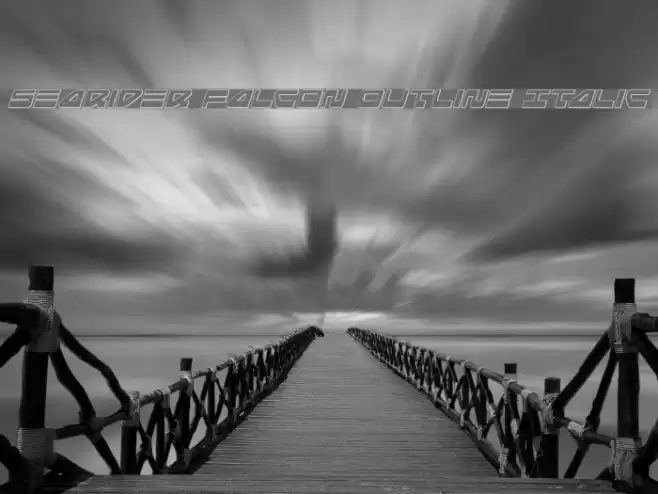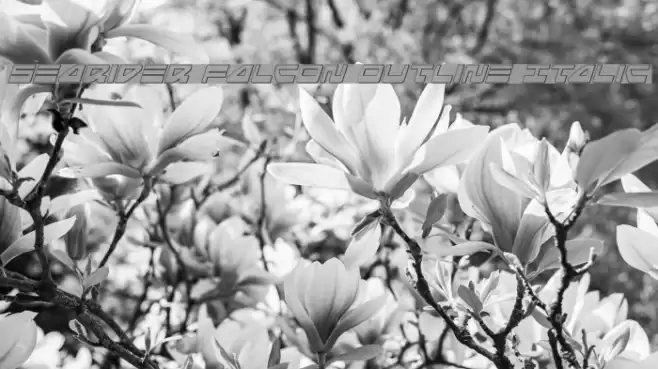
Searider Falcon Outline Italic Font
Searider Falcon Outline Italic Description
This font features a futuristic and dynamic design with an outline style that gives it a sleek and modern appearance. The characters are italicized, adding a sense of motion and energy. The geometric shapes and sharp angles create a bold and distinctive look, making it ideal for attention-grabbing designs. The uppercase and lowercase letters maintain a consistent style, while the numbers and special characters complement the overall aesthetic. The font's outline nature allows for creative layering and color usage in design projects.
A futuristic, italicized outline font with a dynamic and modern design from Uncategorized fonts.
- Proposed Projects: Ideal for sci-fi themed posters, video game titles, tech branding, and modern advertising campaigns.